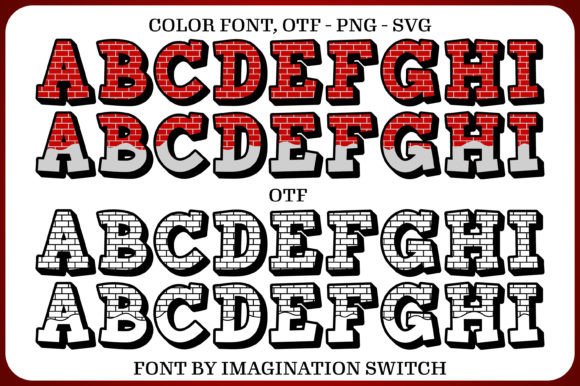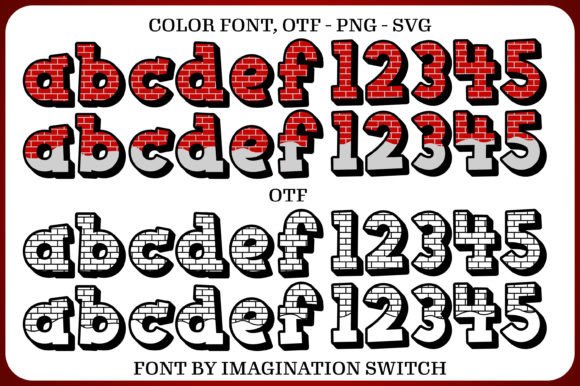
Brick Wall Font: Elevate Your Designs with Vibrant Colors and Endless Creativity
In the realm of typography, few fonts manage to capture attention and inspire creativity quite like the Brick Wall Font. This captivating typographic creation stands out with its intriguing use of colors, meticulously designed to enhance its visual appeal. Whether you’re a designer looking to add a unique touch to your projects or a crafter seeking to elevate your creations, the Brick Wall Font is an exceptional choice.
A Comprehensive Character Set for Endless Possibilities
One of the key features of the Brick Wall Font is its complete set of characters, including uppercase, lowercase letters, and numbers. This comprehensive character set provides flexibility across various types of projects, allowing you to experiment with different combinations and expressions. The font’s versatility makes it suitable for a wide range of purposes, from print designs and web designs to promotional materials and more.
Unleash Your Creativity with Unique Color Choices
The Brick Wall Font’s most striking feature is its carefully chosen color palette for each character. These colors add a mesmerizing visual touch, making each word and number stand out. When you utilize this font, you introduce uniqueness and creativity to your designs, setting them apart from more conventional typography. The visual appeal of the Brick Wall Font is not just aesthetically pleasing; it also enhances the legibility of your message, ensuring that your audience remains engaged and captivated.
Applications Across Various Design Projects
The applications of the Brick Wall Font are vast and varied. In print designs, it can add a dynamic and eye-catching element to brochures, posters, and business cards. For web designs, this font can contribute to creating visually appealing and user-friendly interfaces that capture visitors’ attention. In promotional materials such as banners, flyers, and social media graphics, the Brick Wall Font can help convey your message with both impact and elegance.
Tips for Maximizing the Potential of the Brick Wall Font
- Experiment with Different Sizes: The Brick Wall Font’s visual appeal can be optimized by experimenting with different sizes. Larger sizes can make a bold statement, while smaller sizes can add subtle elegance to your designs.
- Combine with Complementary Fonts: Pair the Brick Wall Font with complementary fonts to create visual contrast and hierarchy in your designs.
- Utilize in Branding: The unique and captivating nature of the Brick Wall Font makes it an excellent choice for branding projects, helping to establish a memorable visual identity.
The Brick Wall Font is a dynamic and versatile typographic creation that offers designers and crafters a unique tool for expressing their creativity. With its complete character set, captivating color palette, and wide range of applications, this font is poised to elevate your designs and projects. Whether you’re working on print designs, web designs, promotional materials, or crafting projects, the Brick Wall Font provides an exciting opportunity to add a touch of uniqueness and visual appeal. By incorporating this font into your creative workflow, you can craft unforgettable designs that leave a lasting impression.